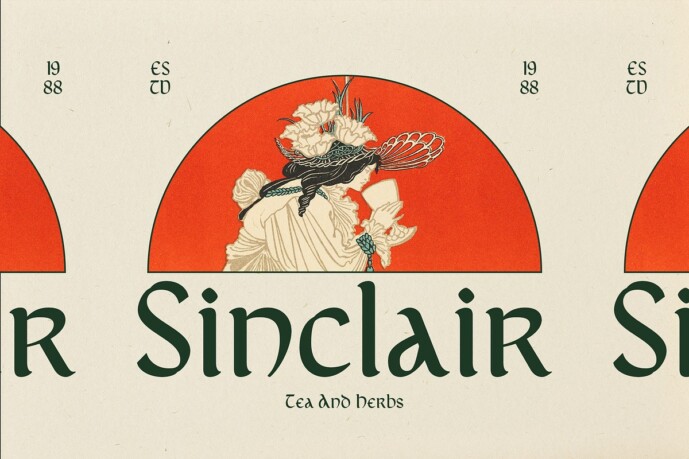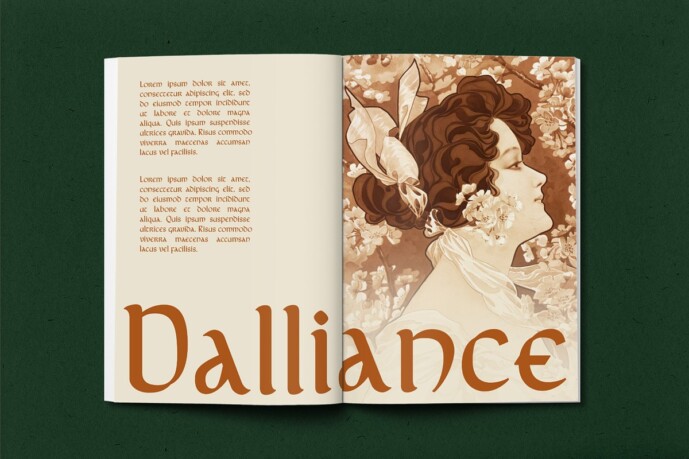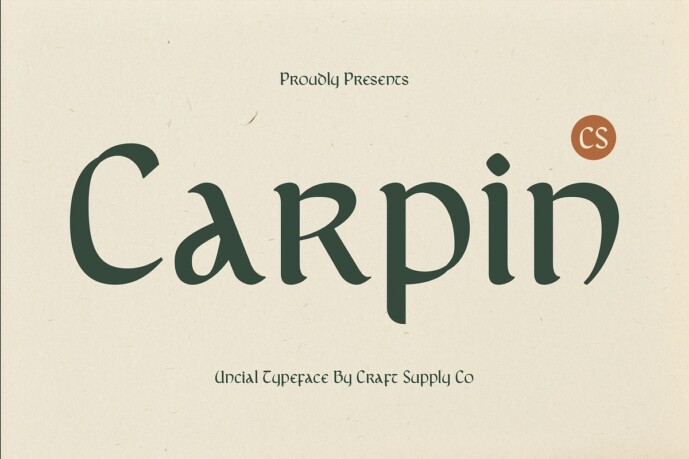
Carpin Font
Designer: Craft Supply Co.
Carpin Font is a captivating display font that draws inspiration from the rich history of medieval handwriting, showcasing the elegance and artistry of uncial script. Characterized by its round, flowing letterforms, this font brings a touch of antiquity to contemporary designs, making it perfect for a variety of creative applications. With its roots deeply embedded in the traditions of scriptoria, CS Carpin resonates with a timeless quality that speaks to the beauty of historical typography.
Perfect for Historical and Formal Designs Ideal for projects that seek a touch of tradition and formality, CS Carpin is well-suited for a wide range of applications. Whether crafting elegant invitations, official documents, or art projects that celebrate the beauty of typography, this font elevates any design with its distinct charm. Its unique characteristics evoke a sense of authenticity, making it a popular choice for designs requiring a historical context or a refined aesthetic.
Artistic and Graceful Presence The distinctive features of CS Carpin result in a font that is not only visually appealing but also full of character. Its graceful curves and balanced proportions create an inviting look, making it perfect for various creative applications. From book covers to decorative prints, branding, and even signage.